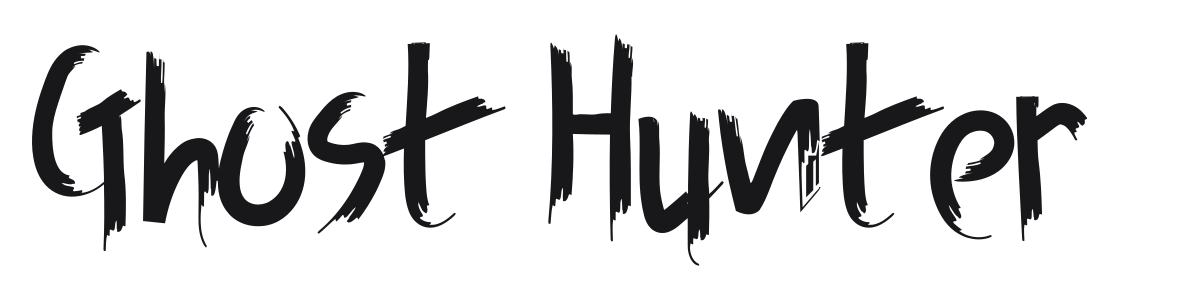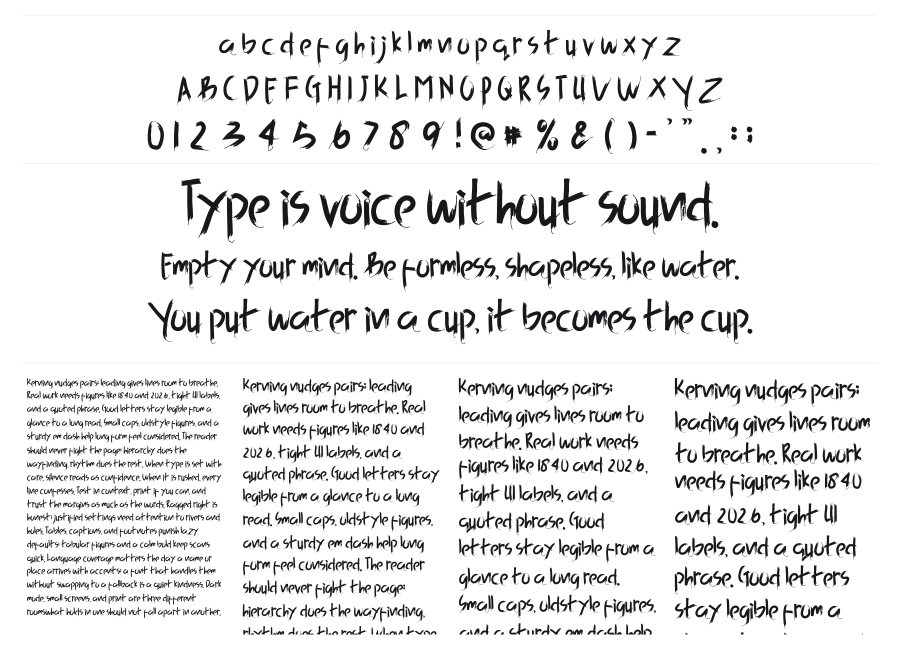
Ghost Hunter
Ghost Hunter is a bold, coarse brush script with heavily frayed strokes that feel like ink dragged fast across a rough surface. The letters have a wild, spontaneous energy drawn from East Asian calligraphy crossed with gritty grunge sensibility. It reads at a glance as something dangerous or supernatural, making it a natural fit for horror titles, metal bands, and edgy editorial work.